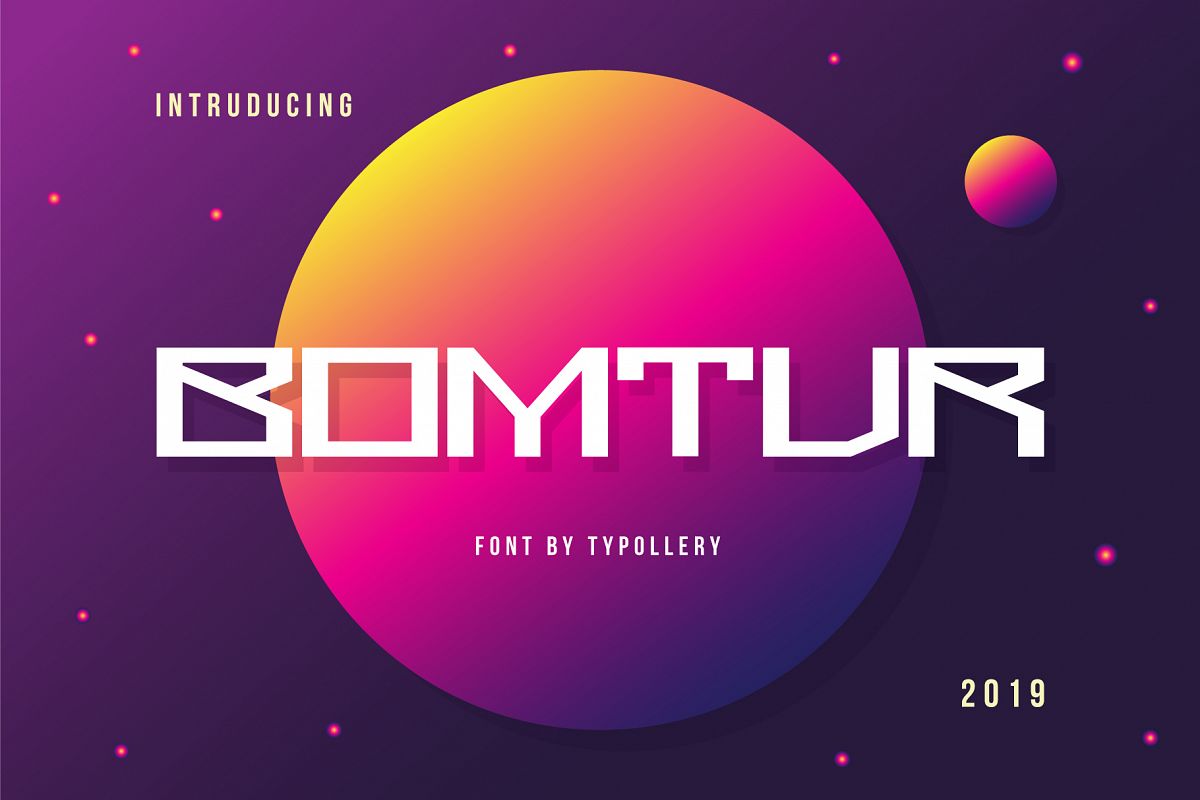
Bomtur
Bomtur is a display typeface futuristic and bold, Bomtur is a modern unique font family. The typeface includes uppercase, numbers and punctuation. Very suitable for inclusion in sci fi, ethnic & modern themes.